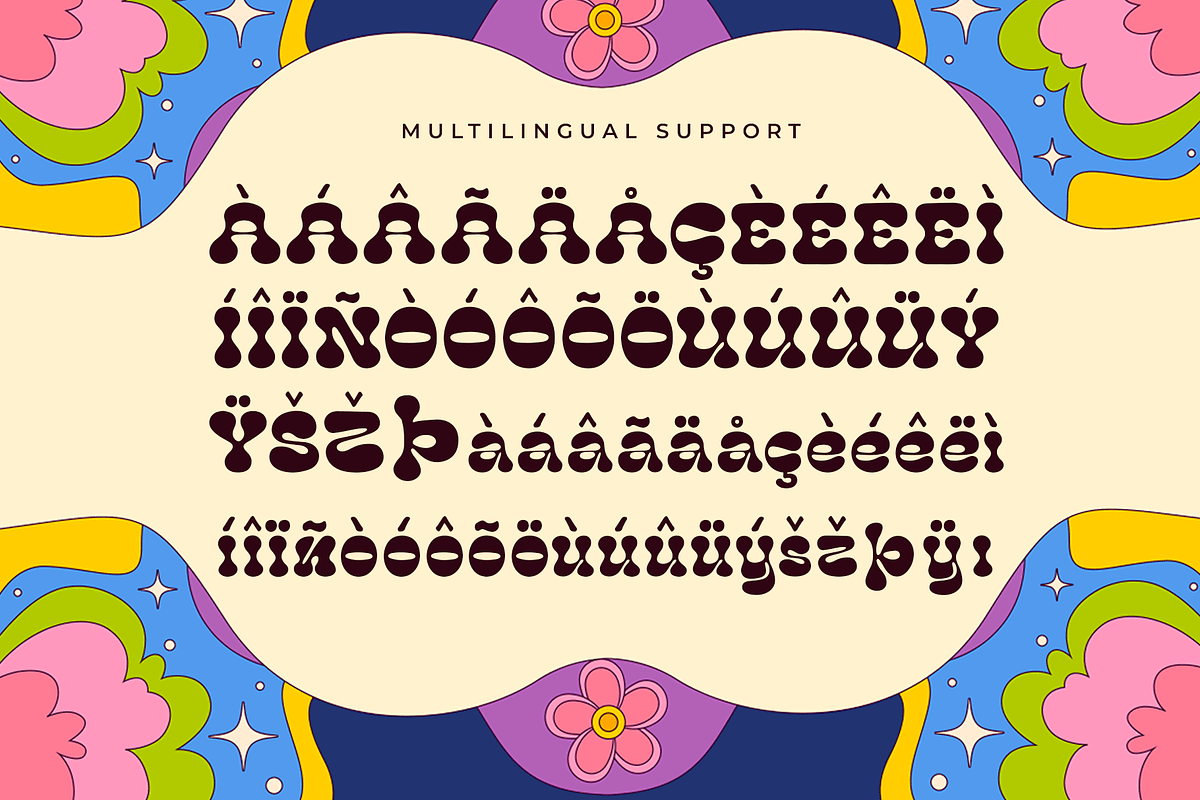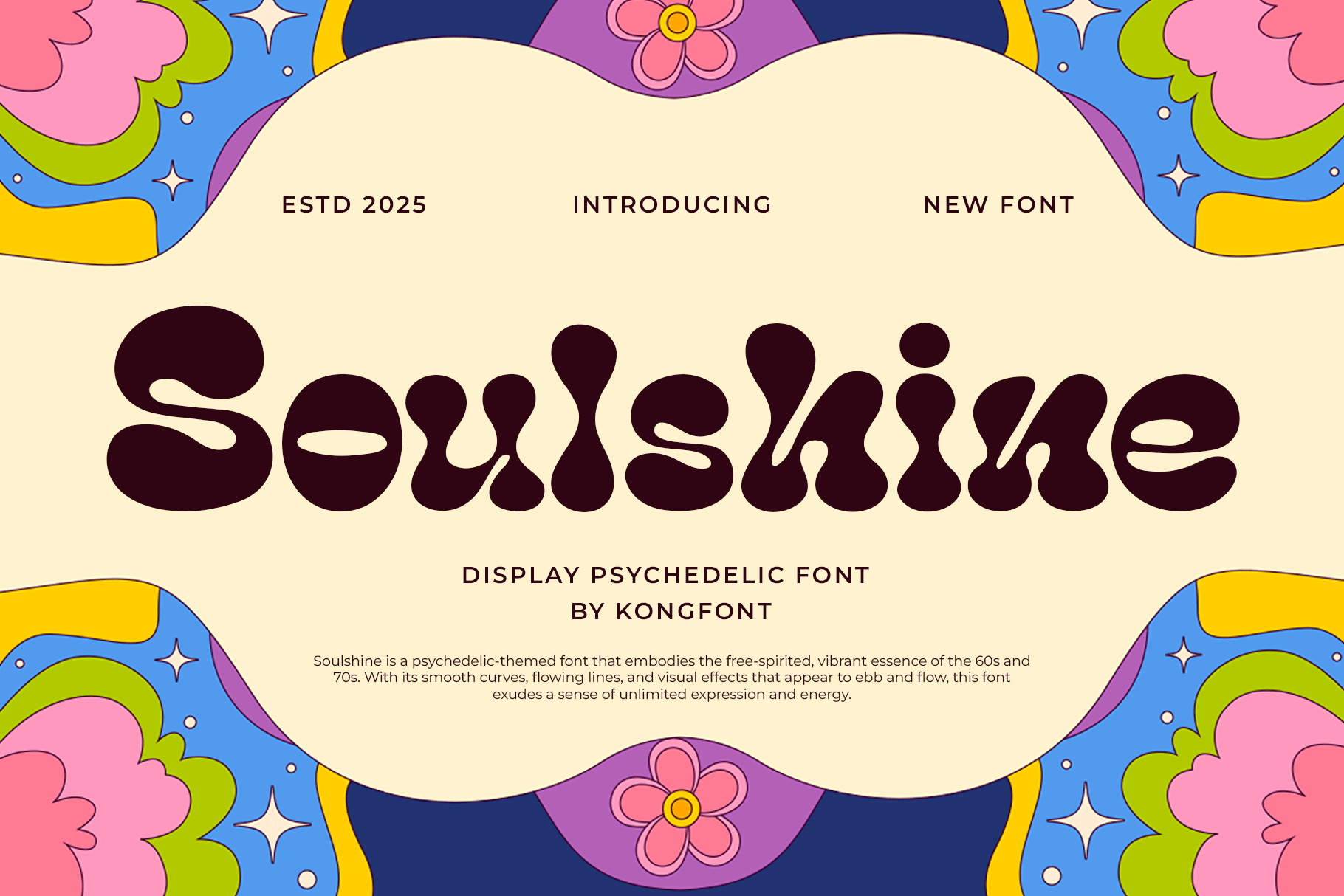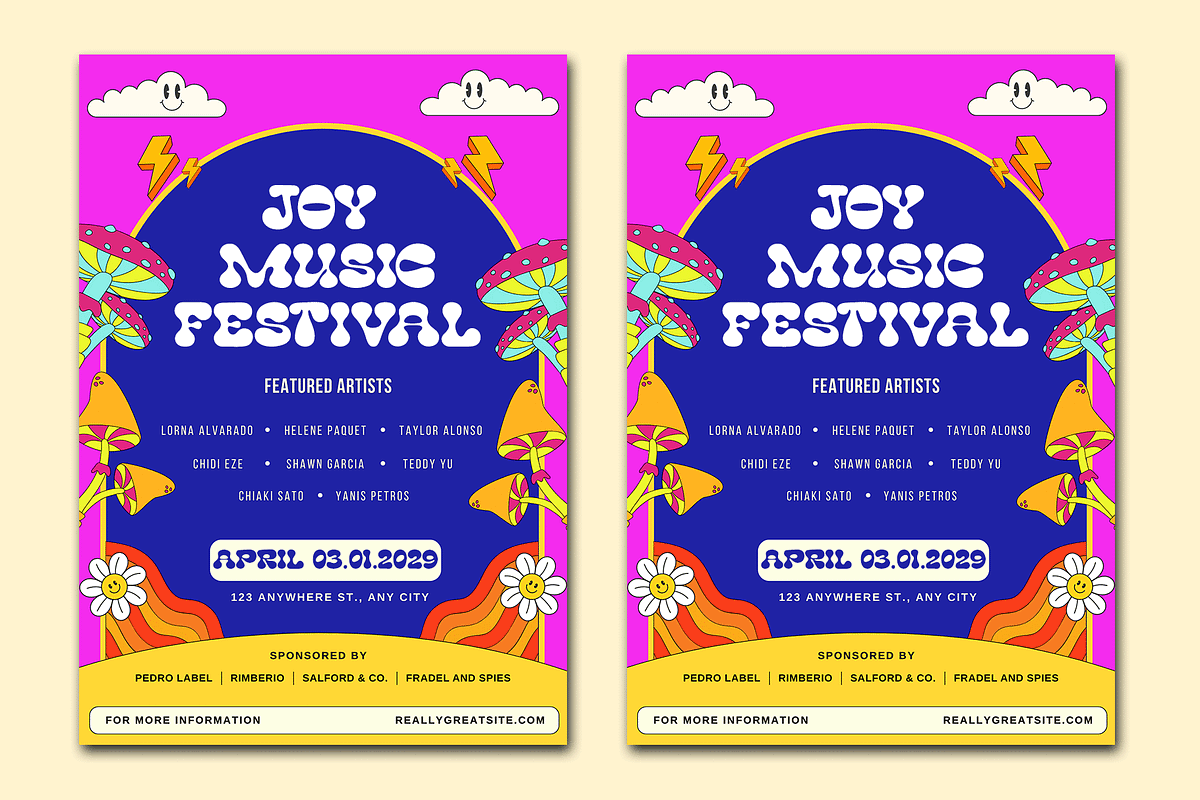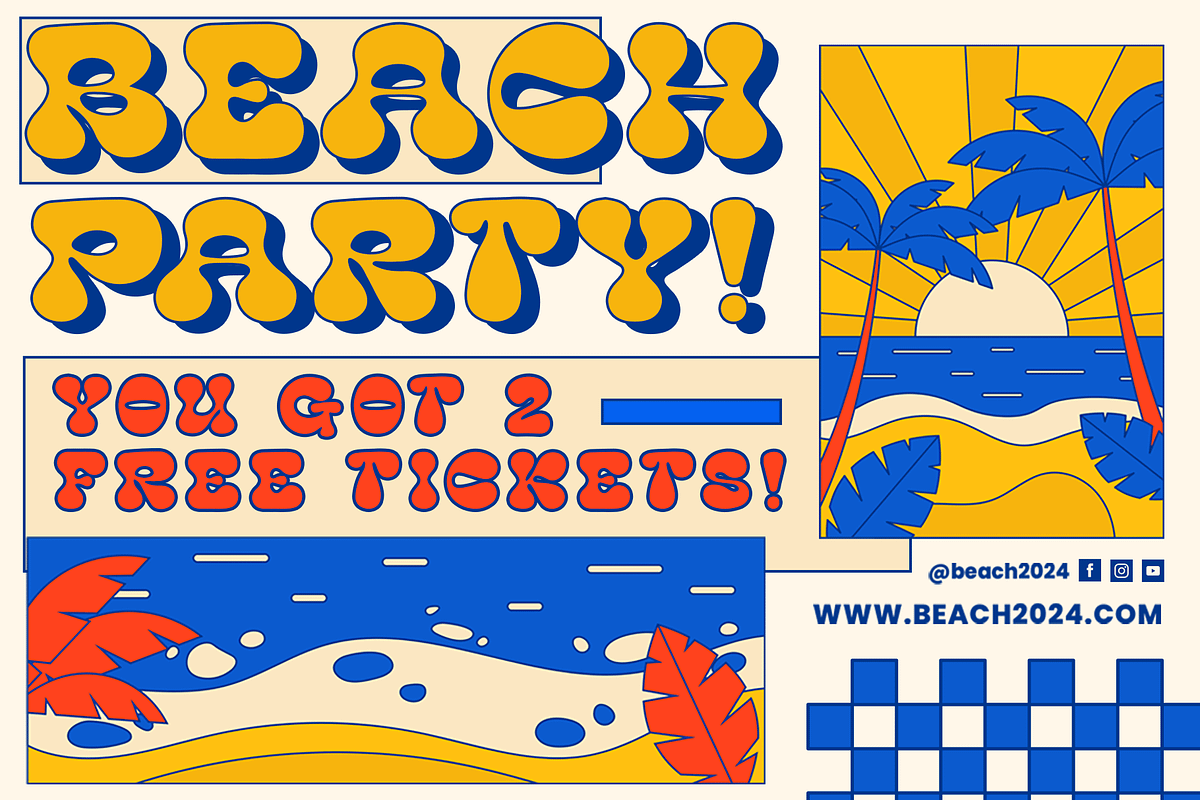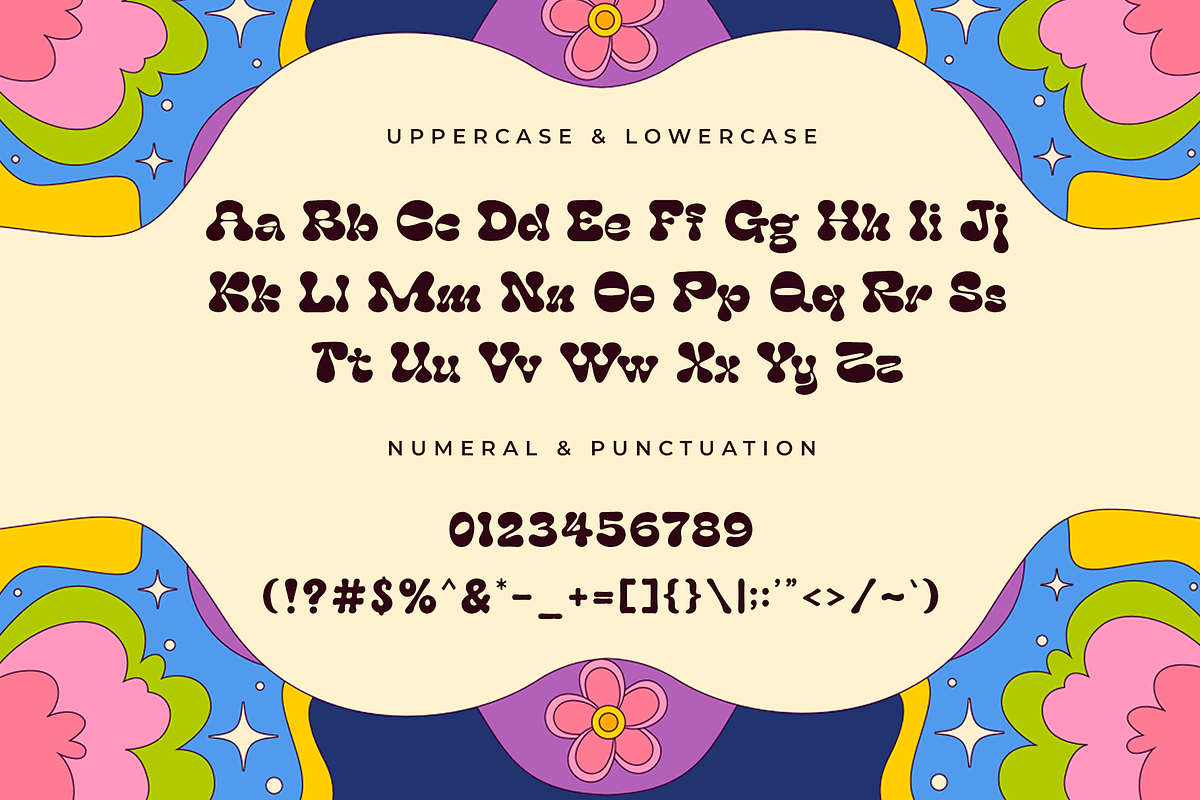
Soulshine - Display Psychedelic Font
Introducing Soulshine, a vibrant display psychedelic font crafted to bring groovy energy and nostalgic charm to your creative projects. Inspired by the free spirited aesthetics of the 60s and 70s, Soulshine features wavy forms, fluid curves, and rhythmic letter shapes that radiate positivity and artistic expression.
Soulshine includes uppercase letters, lowercase letters, punctuation, numerals, and multilingual support, giving you a versatile and expressive tool for a wide range of design needs. Whether you're crafting a dreamy festival poster, a vintage style logo, or a colorful packaging design, this font brings a warm, psychedelic glow to every composition.